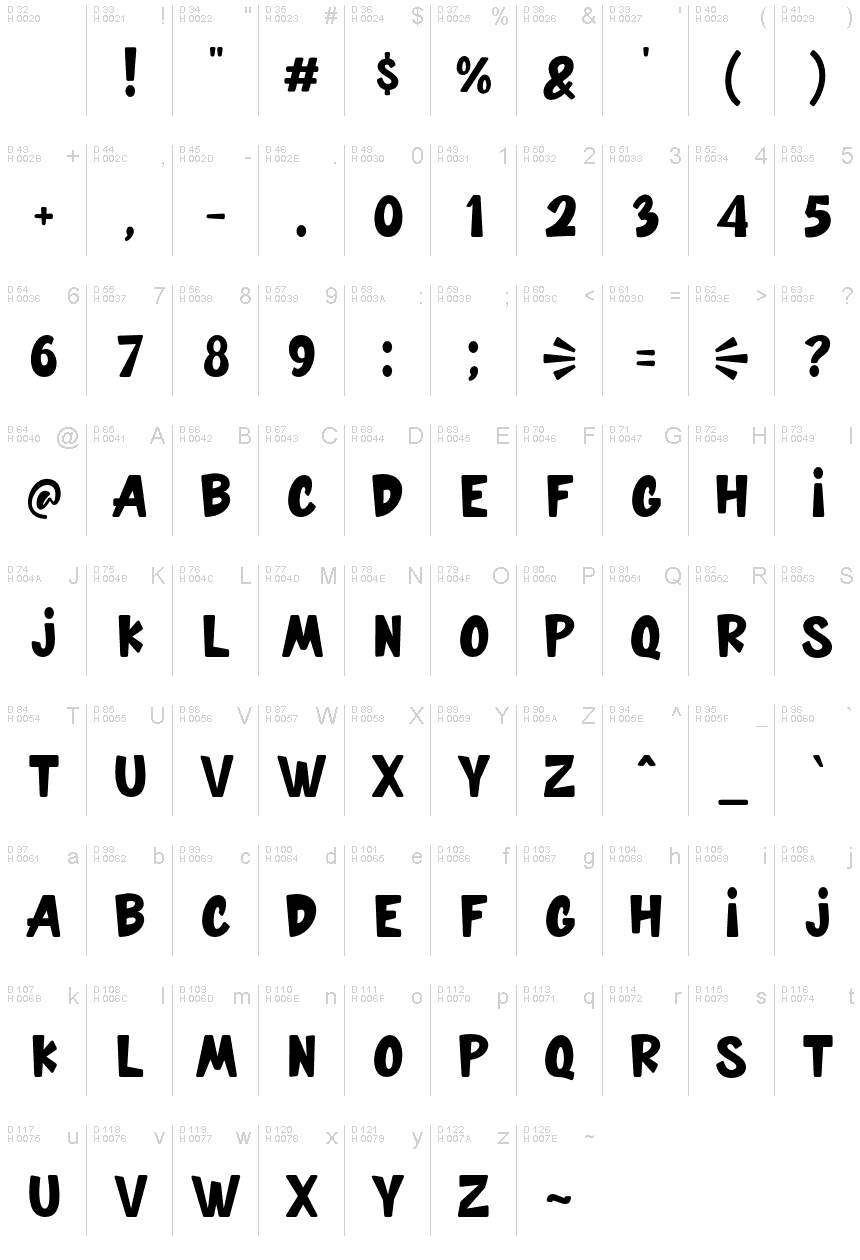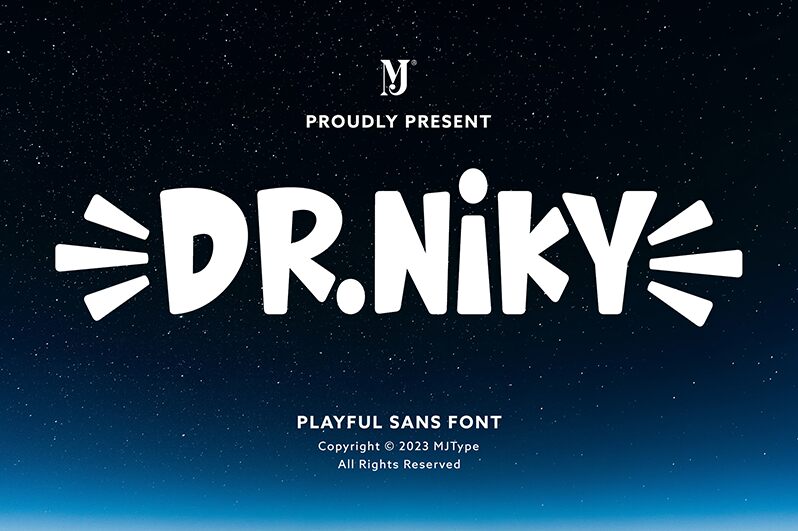
DRNIKY
DRNIKY, the playful cartoon font by MJType, adds a whimsical touch to any project. With its bold weight and lively design, this display font is perfect for children's book covers, animated movie titles, and vibrant packaging designs. Let DRNIKY bring your characters to life or inject a dose of fun into your marketing materials. Whether you're creating eye-catching posters or designing a quirky logo, this font will ensure that your content stands out from the crowd. Get ready to captivate your audience with DRNIKY's delightful and distinctive style.